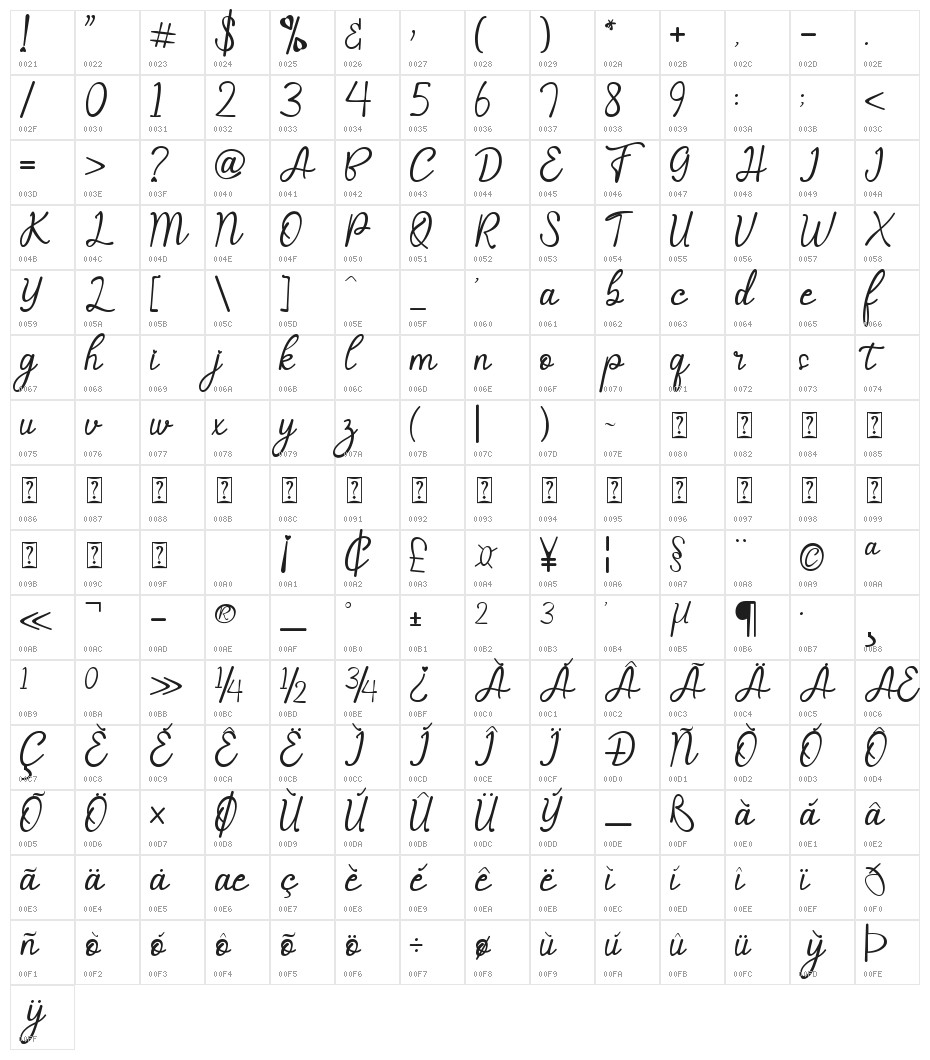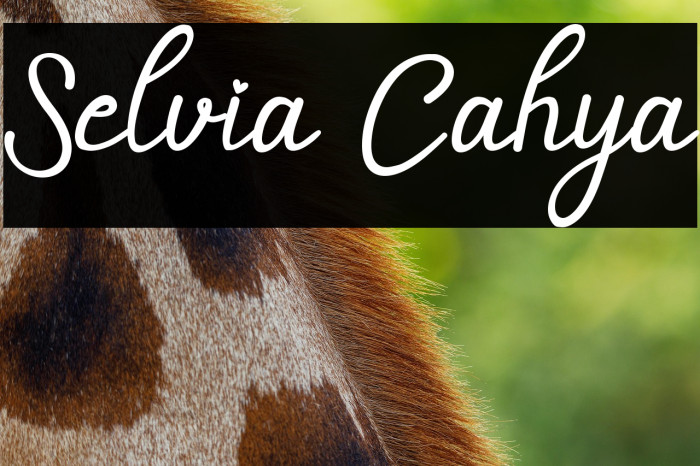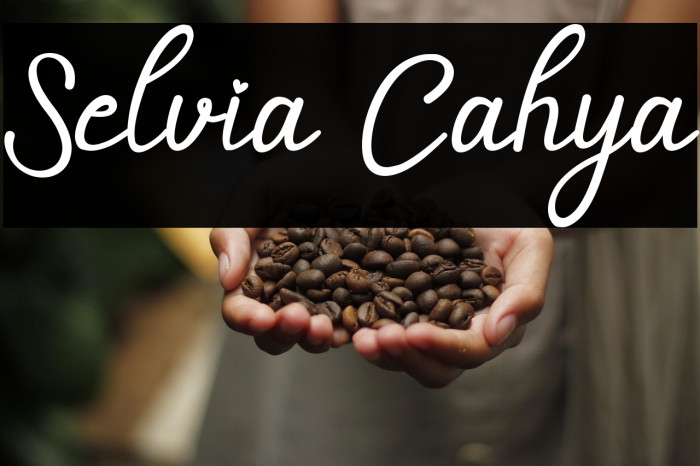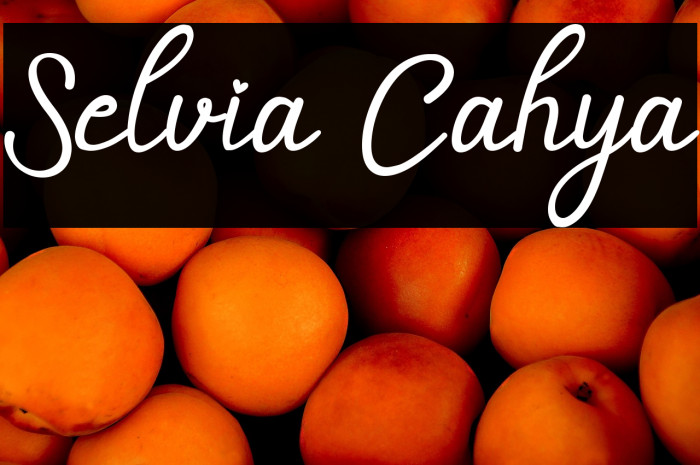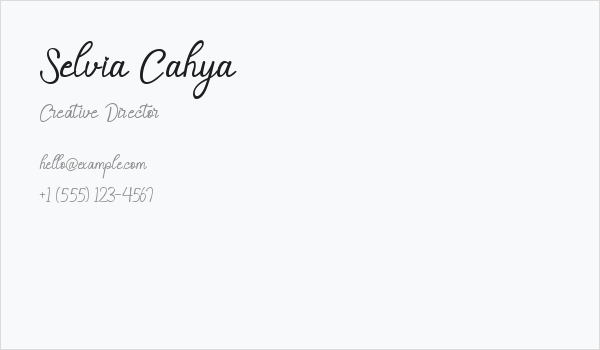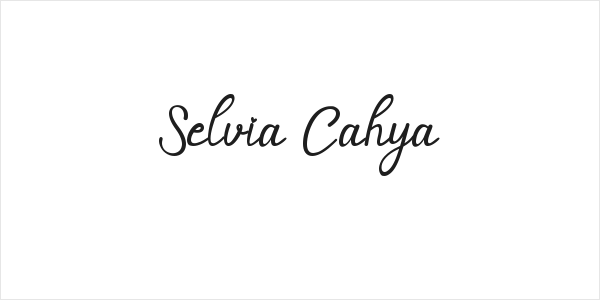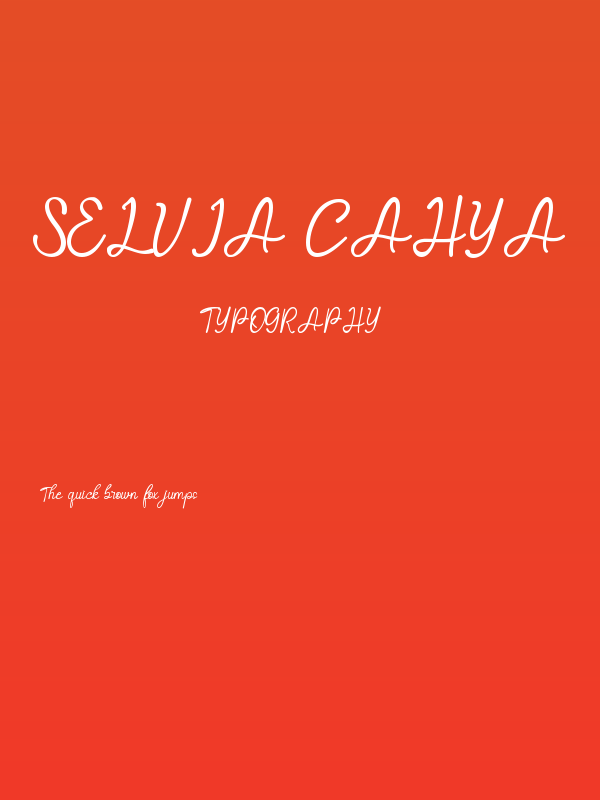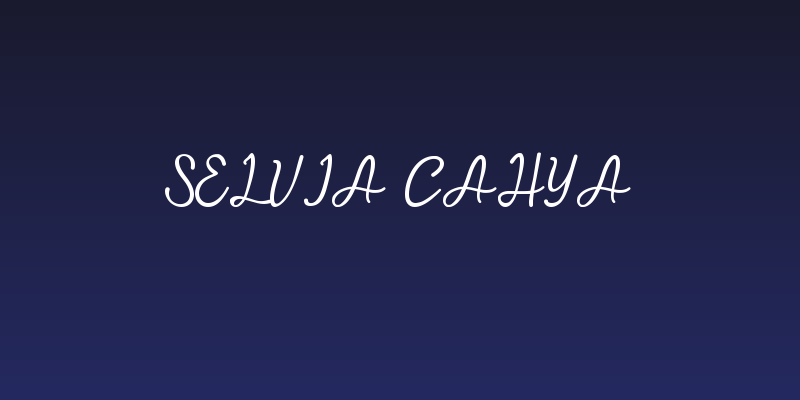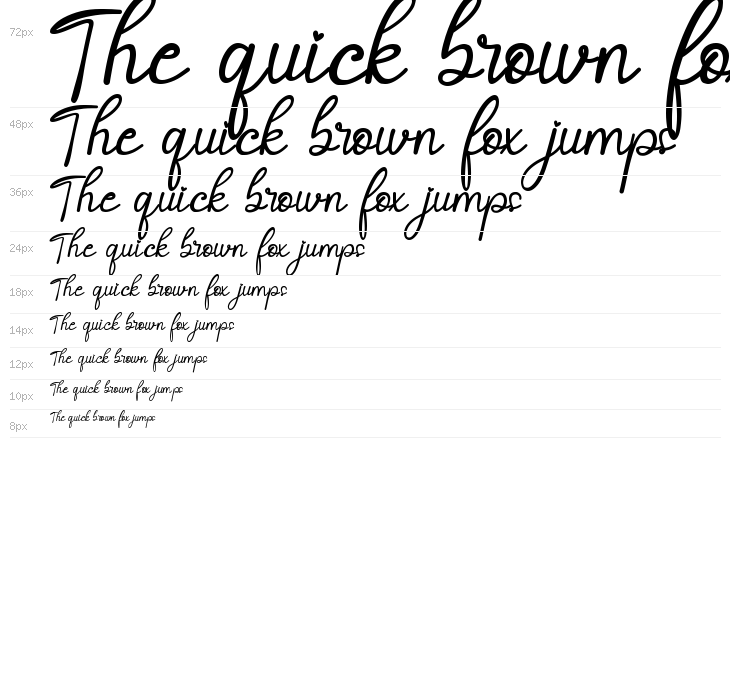
Selvia Cahya Font
Selvia Cahya Description
This font features a flowing, cursive style that exudes elegance and sophistication. The characters are interconnected, creating a seamless and fluid appearance. The uppercase letters are slightly more elaborate, with graceful loops and curves, while the lowercase letters maintain a consistent, smooth flow. The numerals are clear and legible, matching the overall aesthetic of the script. Special characters are thoughtfully designed to complement the letters, maintaining the font's cohesive look. This font is perfect for projects that require a touch of class and refinement.
| Proposed Projects | Ideal for wedding invitations, elegant branding, personal signatures, and upscale packaging. |